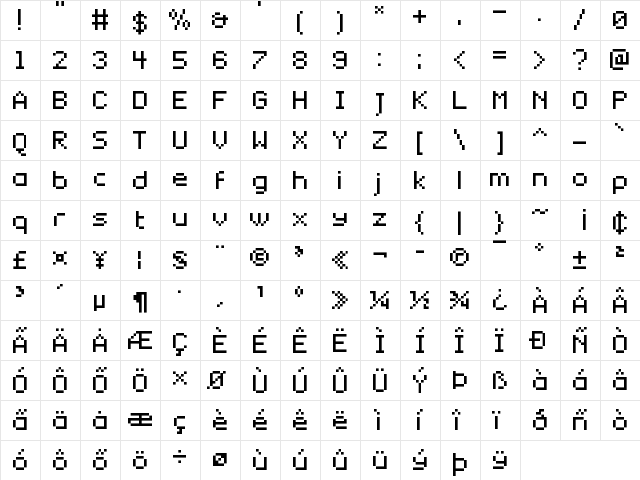
New Gen Regular
Design Context for New Gen Typeface
New Gen is a composed and adaptable typeface that performs quietly and consistently across a wide range of design contexts.